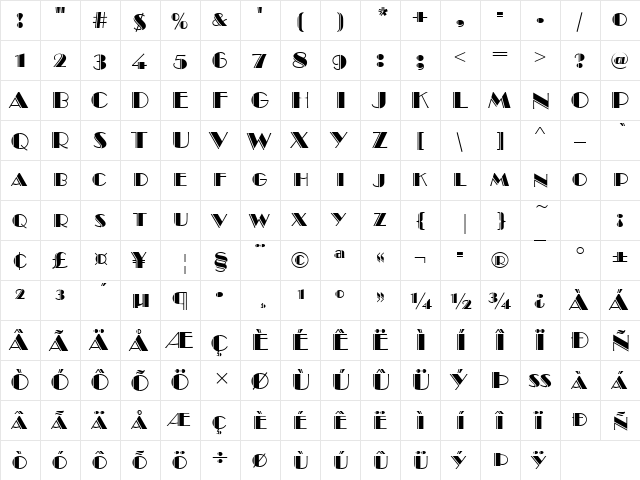
Broadway Becker Eng Caps Regular
Design Context for Broadway Becker Eng Caps Typeface
Broadway Becker Eng Caps is a composed and adaptable typeface that performs quietly and consistently across a wide range of design contexts.